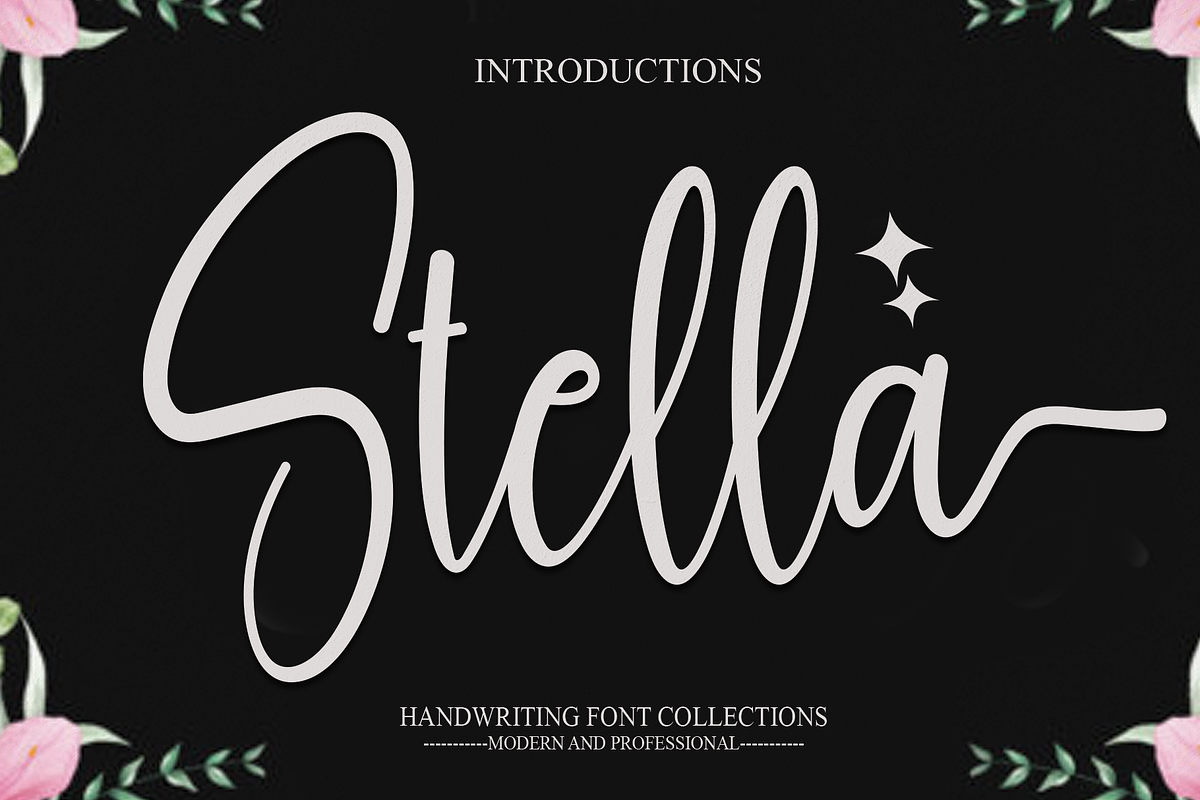
Stella | Script Font Free Download is a chic and elegant handwritten script typeface that blends modern calligraphy with a graceful, flowing rhythm. Perfect for wedding invitations, feminine branding, Instagram quotes, product packaging, and personal logos, Stella brings a touch of sophistication and beauty to every design.
With its smooth curves, delicate swashes, and natural handwriting style, Stella | Script Font Free Download is both stylish and approachable. Whether you're crafting romantic stationery or designing a classy brand identity, this font adds charm and elegance in just the right measure.